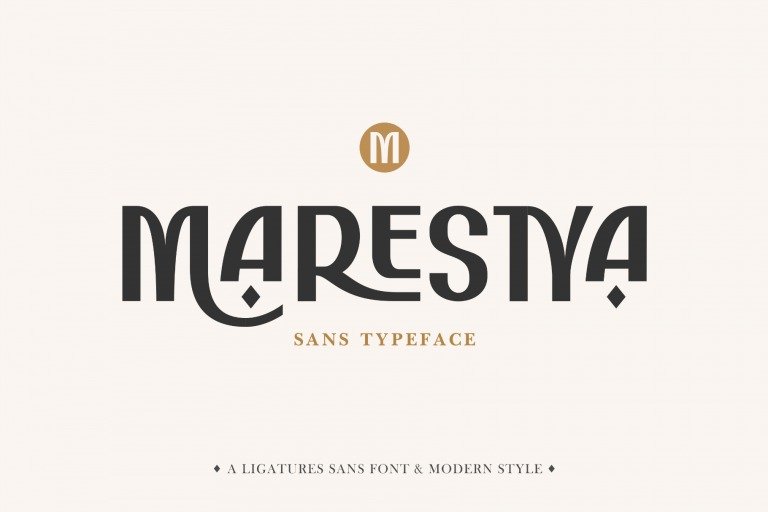
Marestya Font
Marestya is a classic sans serif font designed by Silverdav Studio with a slightly modern style, this font has many alternates and ligatures which when combined will produce a very attractive design, making your design even more stunning, you will be happy to see your design.
Marestya font is perfect for logos, branding, t-shirts, clothes, magazines, weddings, and more